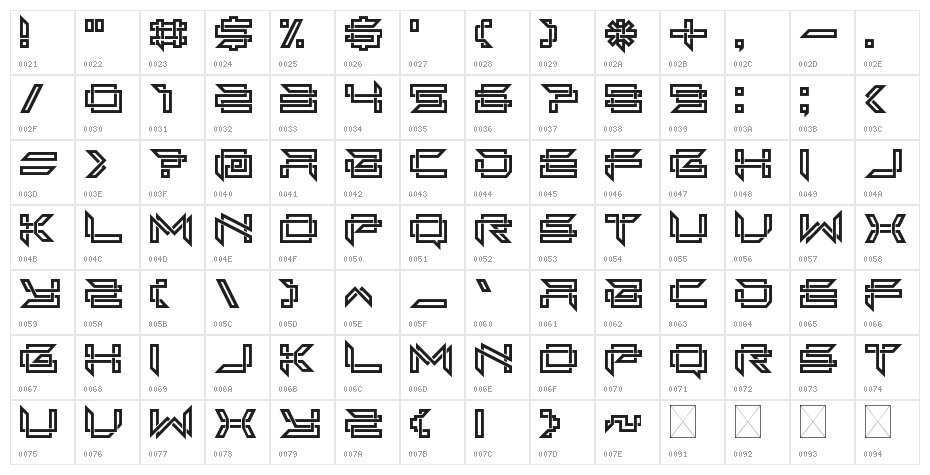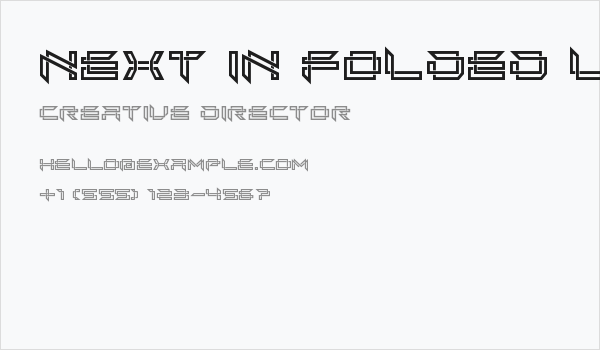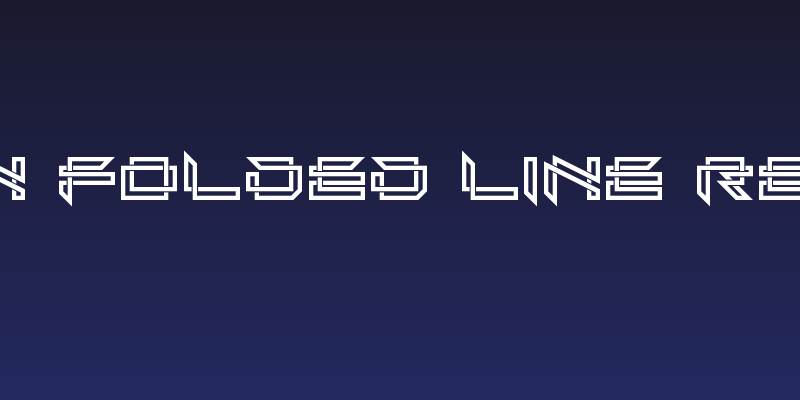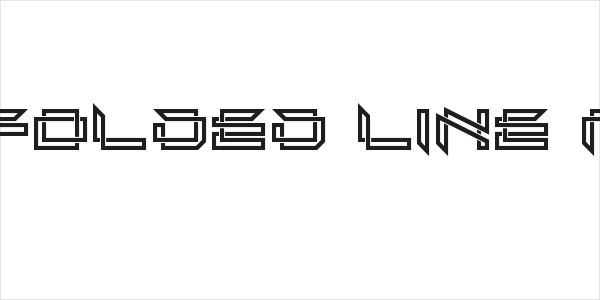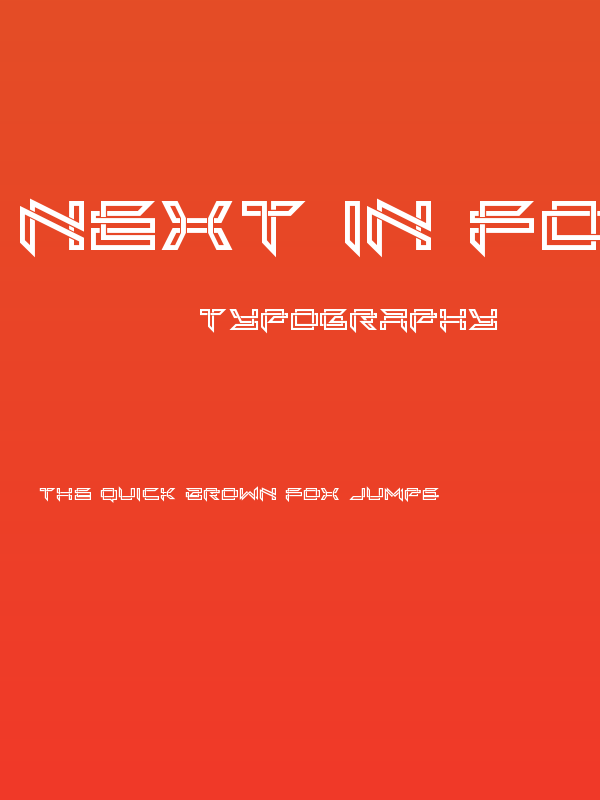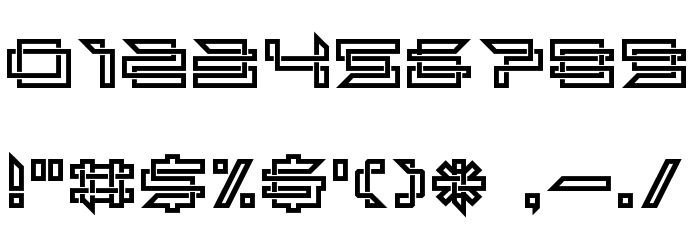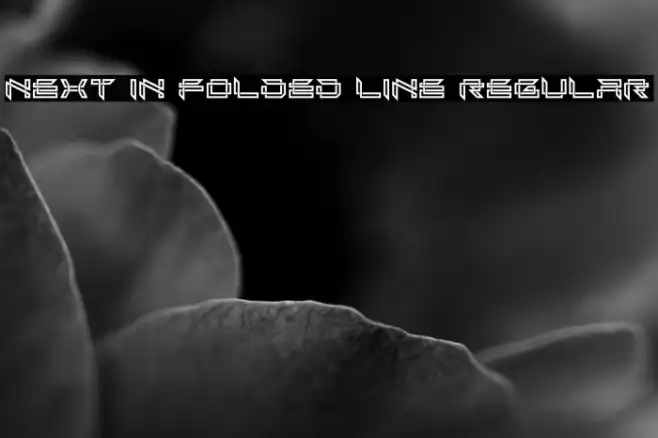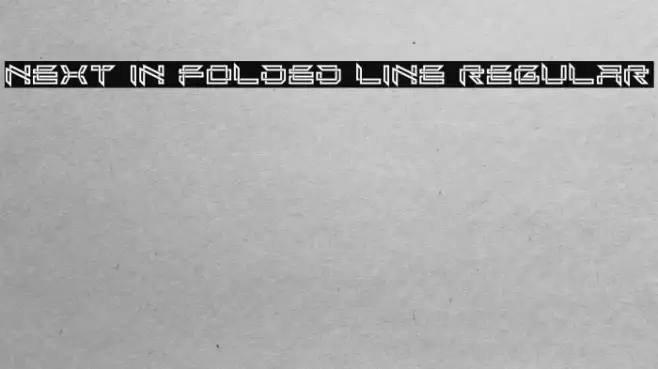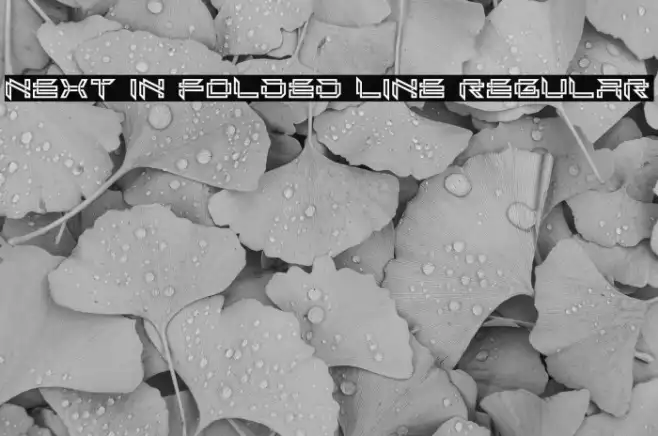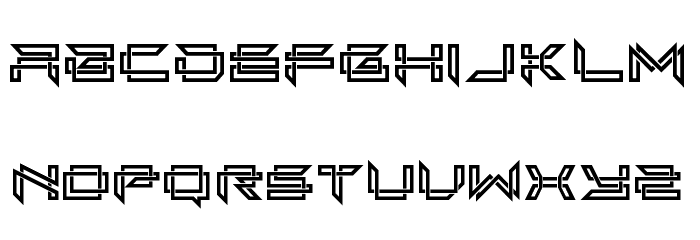
Next In Folded Line Regular Font
Next In Folded Line Regular Description
This font features a futuristic and geometric design, characterized by its sharp angles and folded line elements. Each character is constructed with a series of straight lines and corners, creating a sense of depth and dimension. The uppercase and lowercase letters maintain a consistent style, with a bold and structured appearance. Numbers and special characters follow the same design principles, ensuring uniformity across the font. The overall look is modern and edgy, making it suitable for projects that require a contemporary and tech-inspired aesthetic.
| Proposed Projects | Ideal for tech branding, sci-fi posters, video game titles, and modern digital interfaces. |